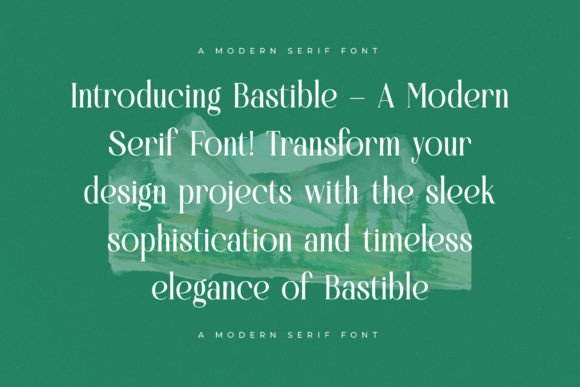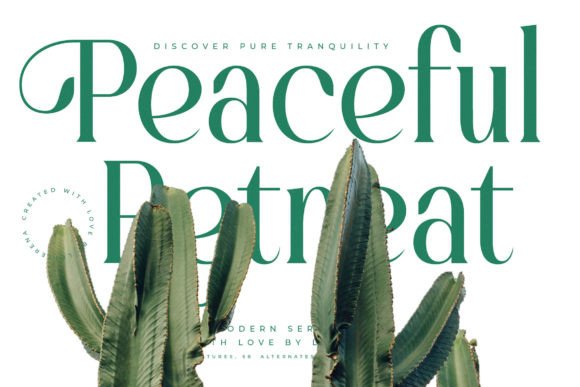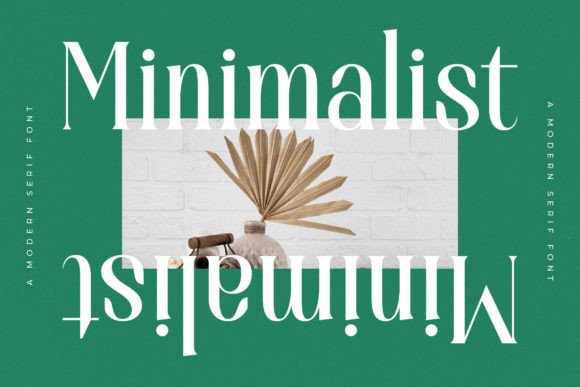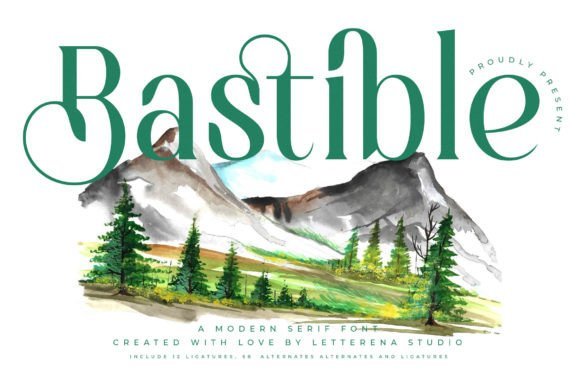
Introduction to Bastible Font
Bastible – Modern Serif Font , from Letterena, is a Luxury Serif font, suitable for any projects such as: logos, branding projects, homeware designs, product packaging, mugs, quotes, posters, shopping bags, t-shirts, book covers, name card, invitation cards, greeting cards, label, photography, watermark, special events, and all your other luxury and beautiful projects that need a Luxury Serif taste.
Bastible – Modern Serif Font , from Letterena, is a Luxury Serif font, suitable for any projects such as: logos, branding projects, homeware designs, product packaging, mugs, quotes, posters, shopping
Key Features of Bastible Font
Why Choose Bastible Font?
Bastible Font offers exceptional quality and versatility, making it a valuable addition to your design toolkit. Whether you’re creating for personal projects or commercial use, Bastible Font delivers professional results.